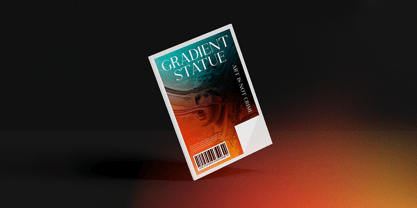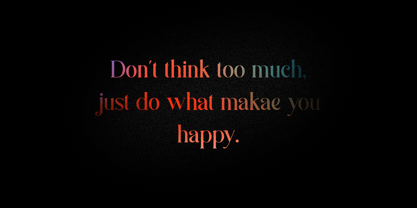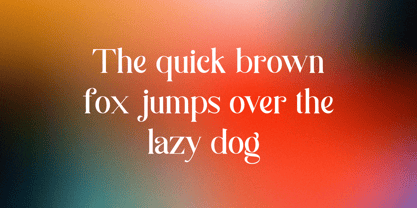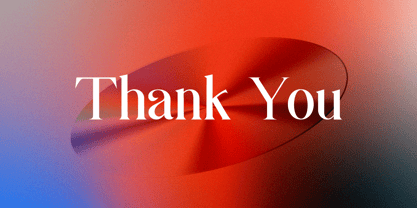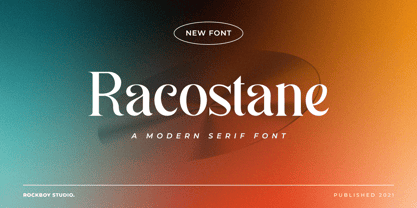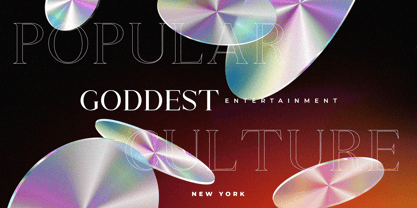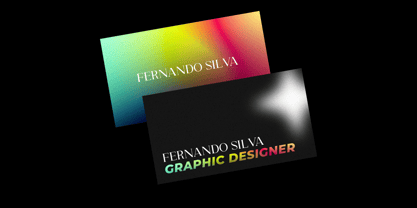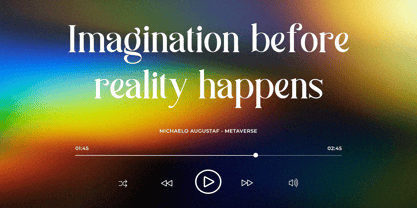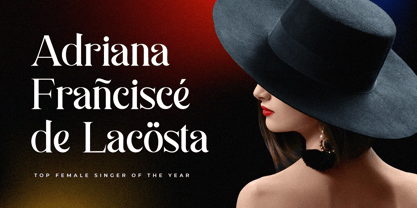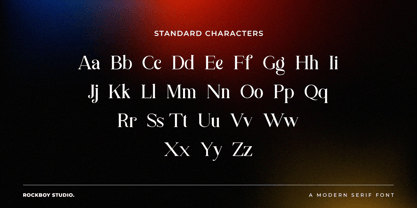
Racostane
by Rockboys Studio
The Racostane Font Family was designed by Hayinah and published by Rockboys Studio. Racostane contains 1 styles.
Racostane is an elegant, thin lettered and distinct serif font. Suitable to a wide variety of designs due to its neat and clean style, this font has the potential to become your favorite go-to font, no matter the occasion!
Designers: Hayinah Hayinah
Publisher: Rockboys Studio
Foundry: Rockboys Studio
Design Owner: Rockboys Studio